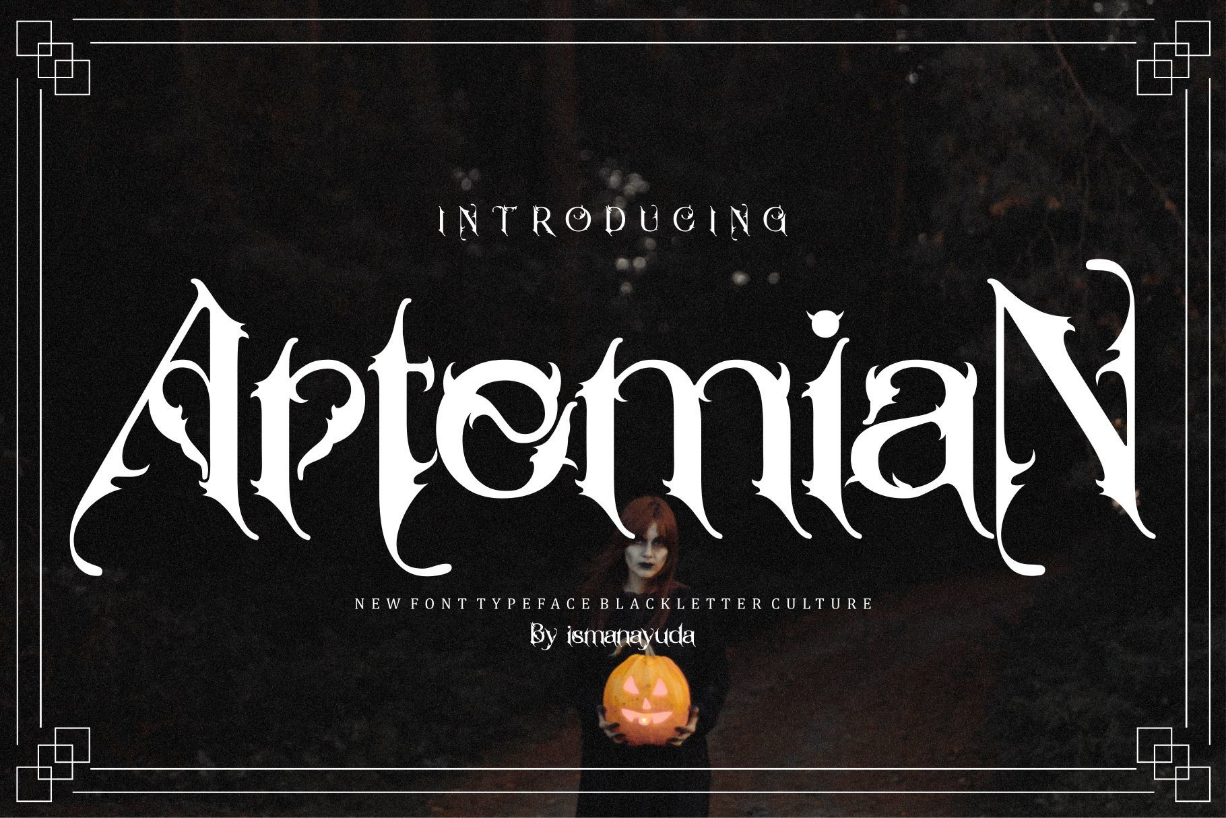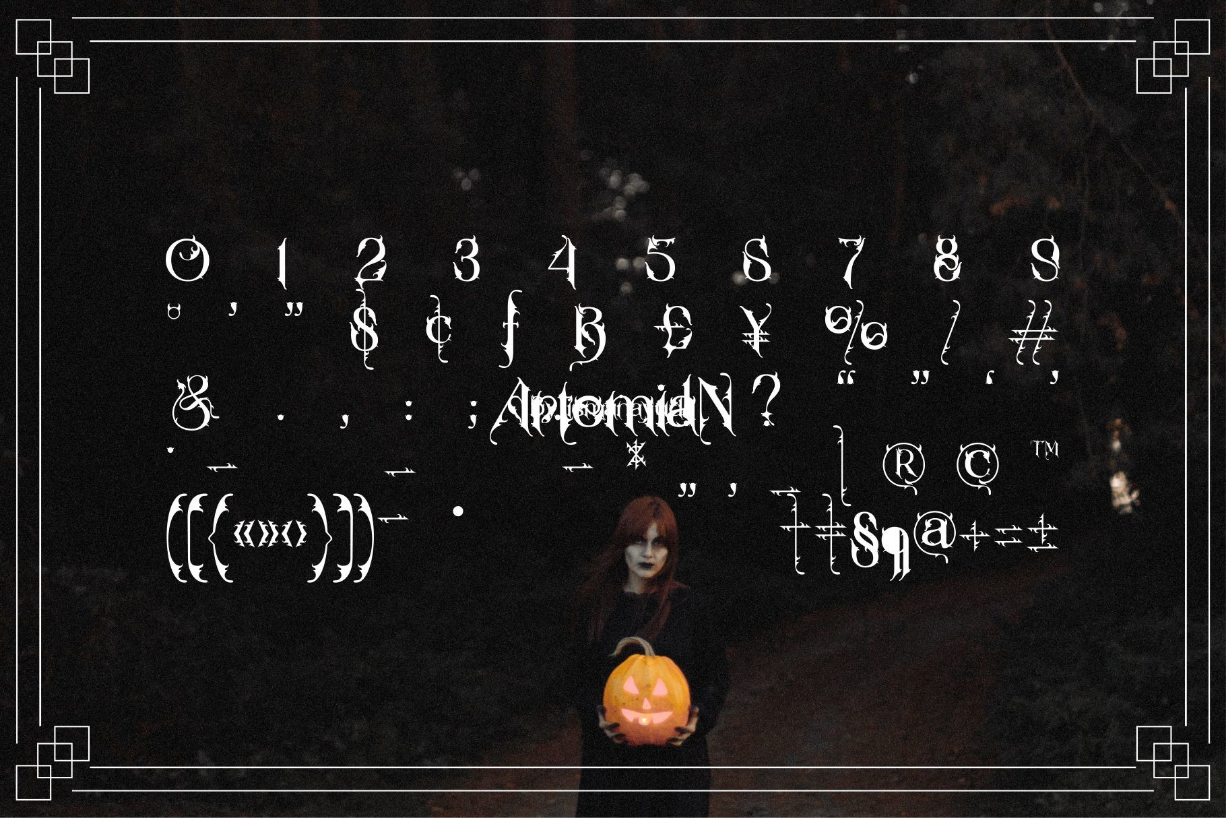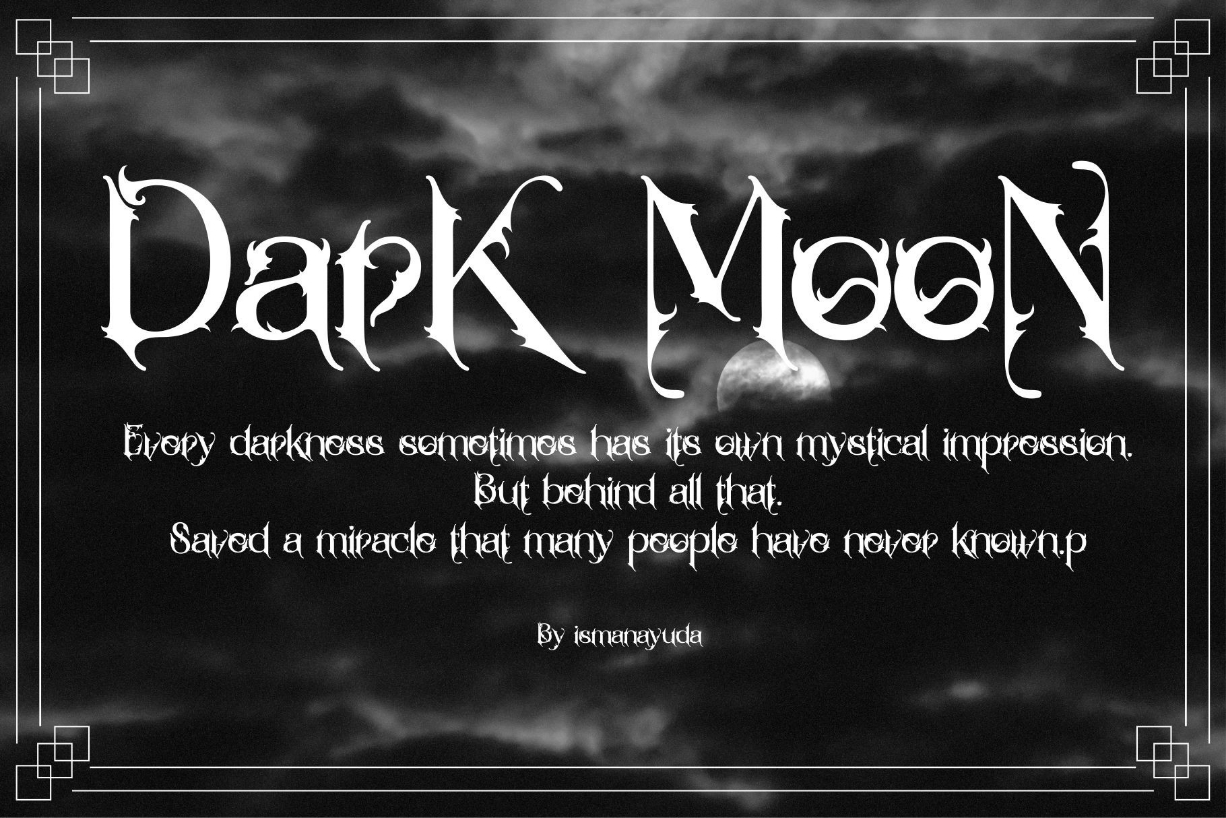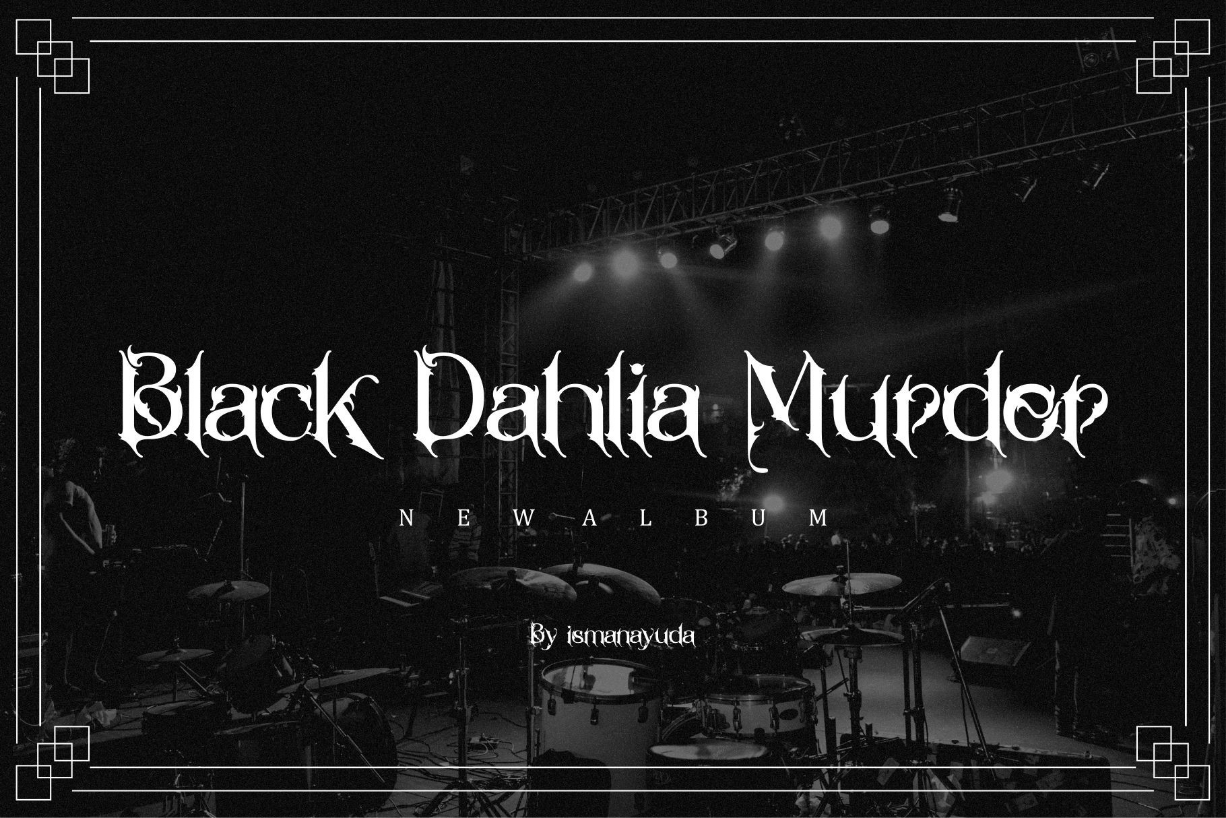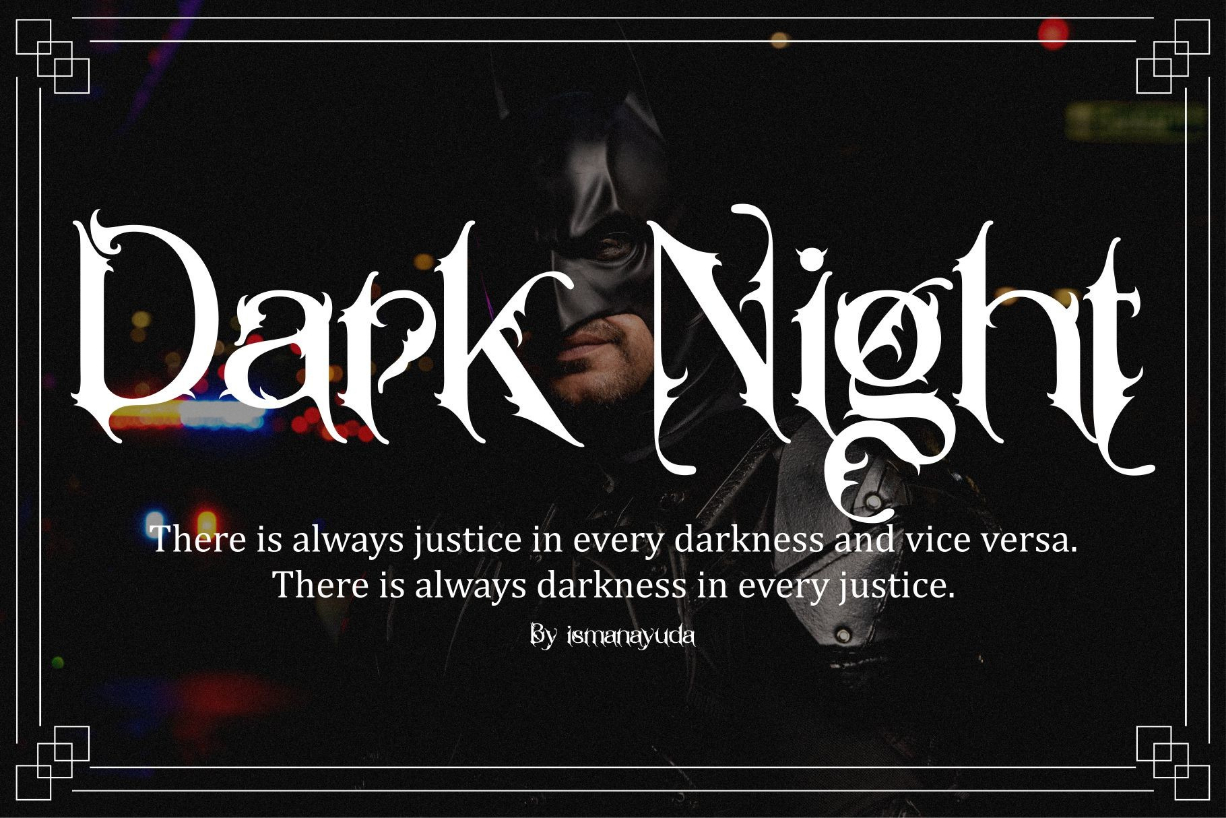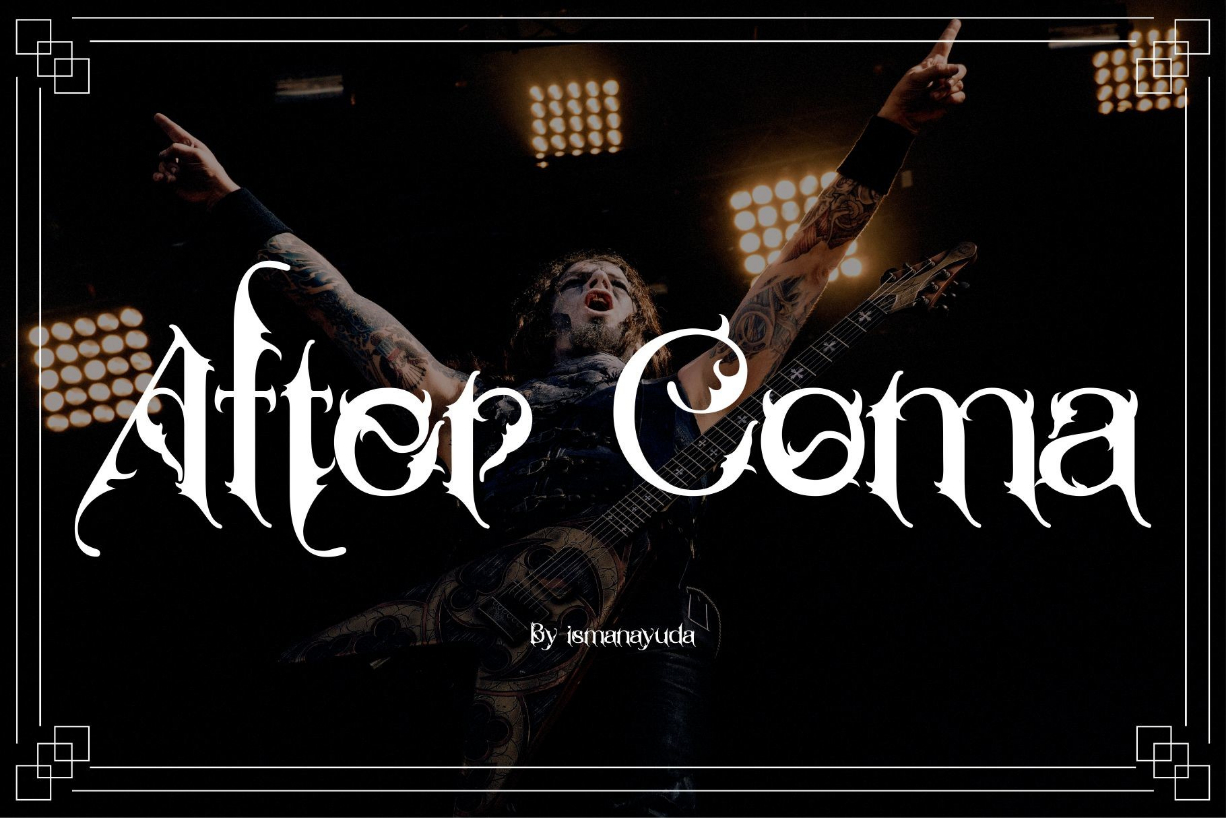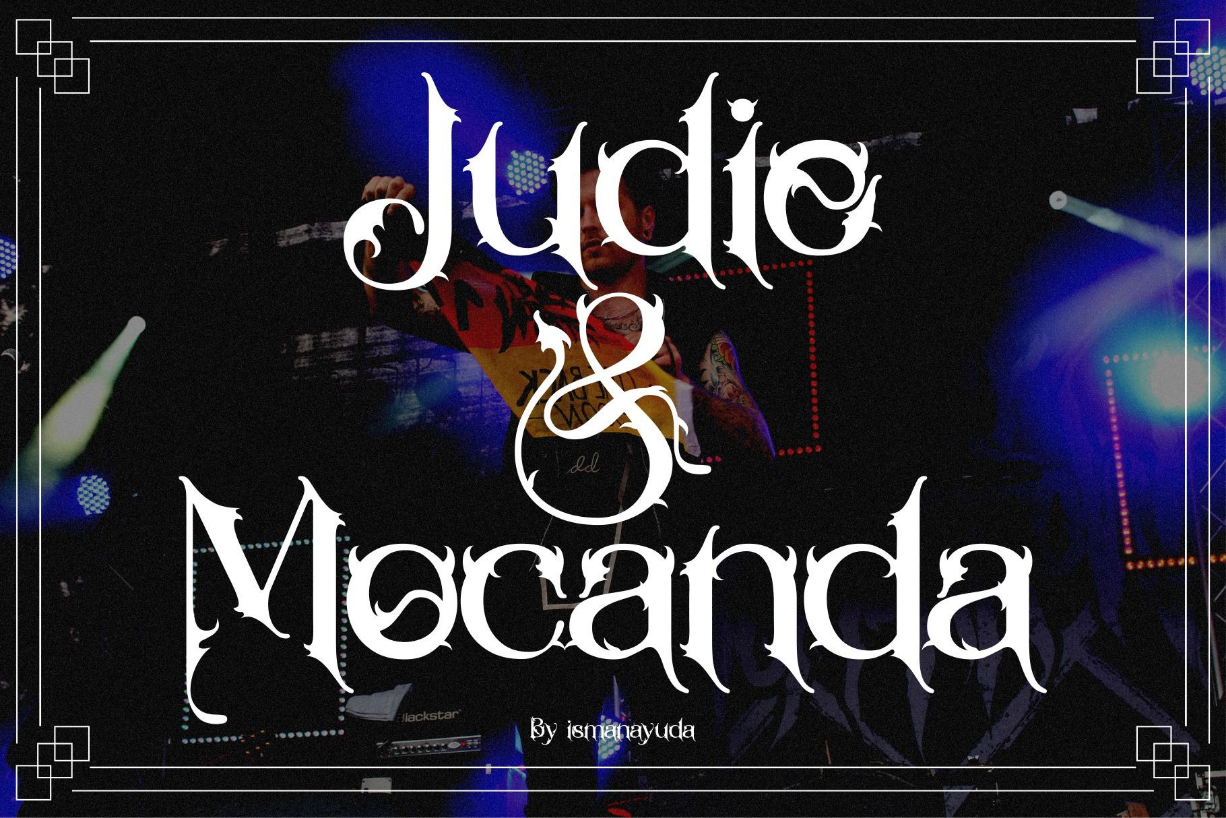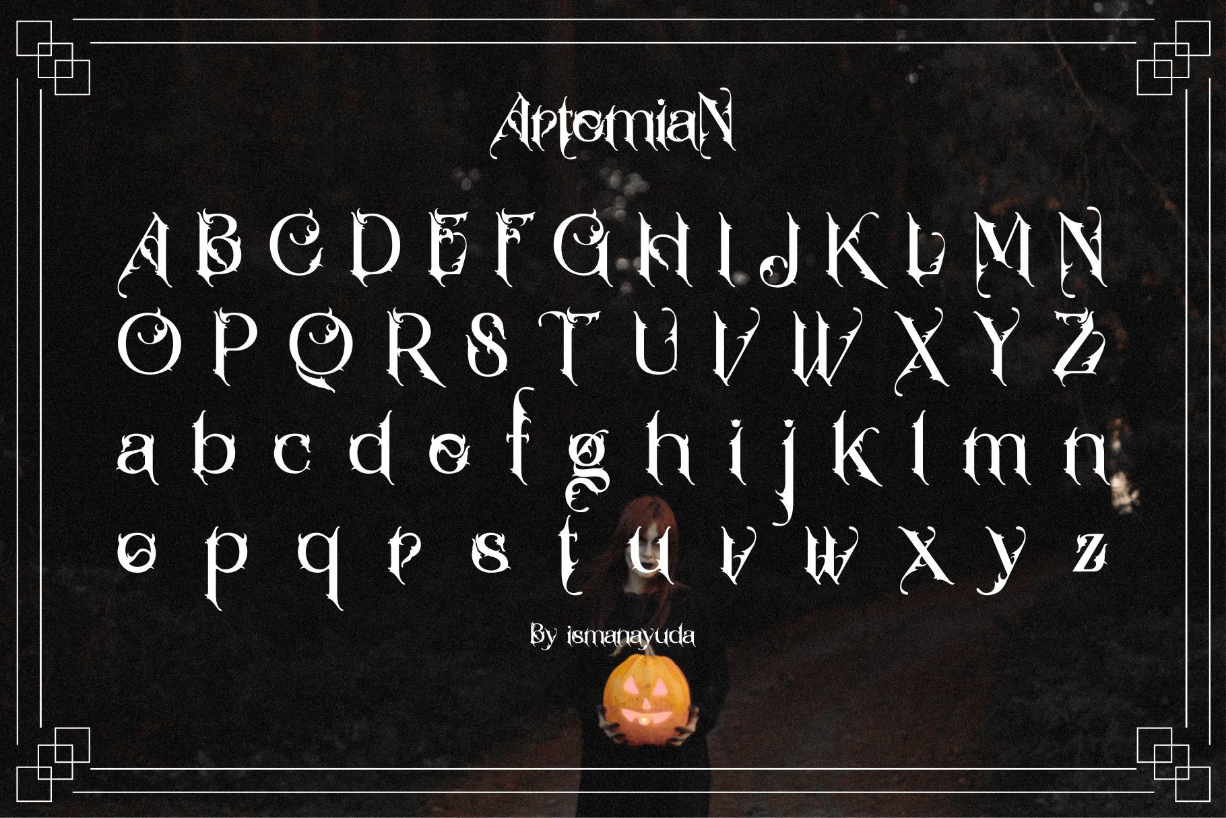
Artemian Font
About Artemian Font
Artemian is a bold and thick lettered blackletter font. Add it confidently to your projects, and you will love the results.